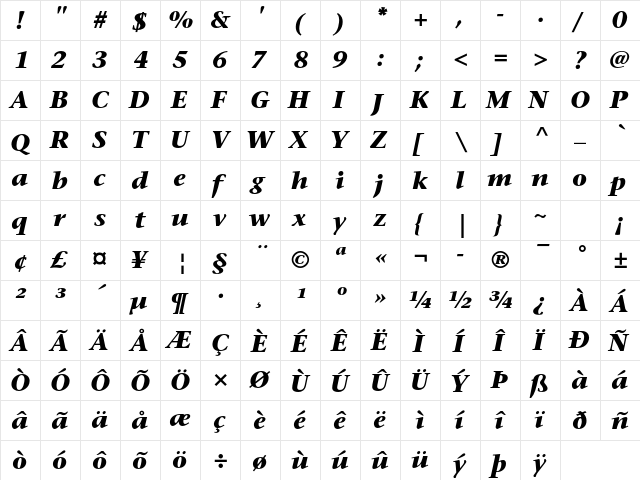
ITC Stone Serif Std Bold Italic
| Designer | Sumner Stone, John Renner |
Design Context for ITC Stone Serif Std Typeface
ITC Stone Serif Std brings classic typographic sensibility to the table — its serifs and measured letterforms reflect centuries of print heritage. Its italic angle brings a sense of urgency and motion to the letterforms. The heavy weight commands attention and anchors typographic hierarchies.
Pro Tip: Set ITC Stone Serif Std with slightly loose tracking in headlines to let each letterform's detail read clearly at display sizes.